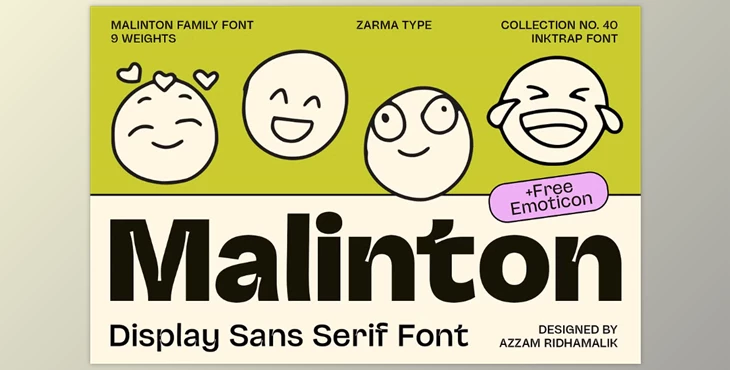
Malinton - Display Sans Font Family:
The Malinton Display Sans Font Family is a dynamic and versatile font designed to enhance your creative projects with its distinct personality. With 9 different weights ranging from Extra Light to Black, it adapts to a variety of design needs, from bold, attention-grabbing headlines to more serious, professional statements.
The font's unique ink traps and playful emoticon alternatives strike a balance between modern structure and friendly appeal, making it ideal for branding, social media, and editorial content. Packed with OpenType features, variable font technology, and extensive language support, Malinton ensures both aesthetic appeal and readability, adding a touch of character to any design.
Some great features of Malinton - Display Sans Font Family:
- 9 weights from Extra Light to Black
- Uppercase, Lowercase, Numbers, and Punctuation
- OpenType Features
- PUA Encoded Characters
- Extended Latin Character Set
- Supports 80+ Languages
- Free Emoticon Alternatives
- Variable Font Technology